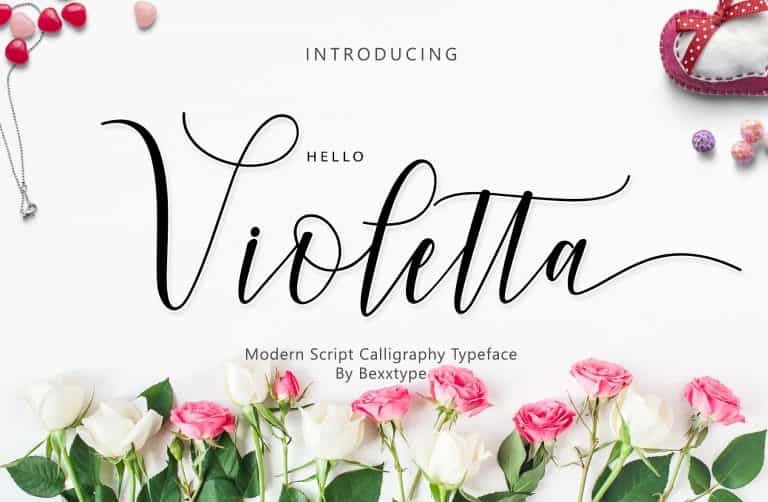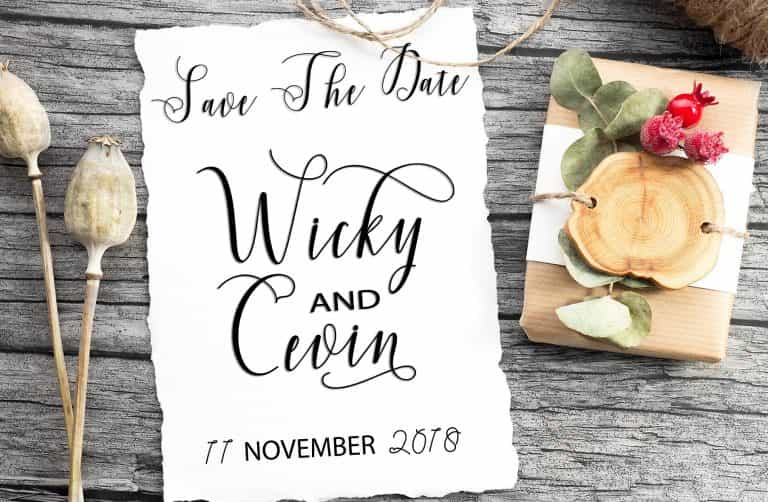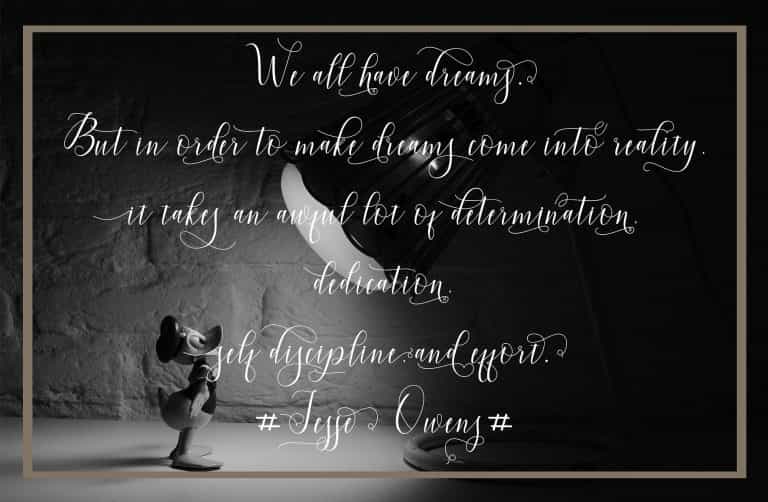
Hello Violetta is a modern script font, which has been thoroughly designed to make every single letter look great. With modern script style this font will perfect for many different project, example: weddings, invitations, greeting cards, posters, name card ,quotes,blog header,dressing up for a wedding.